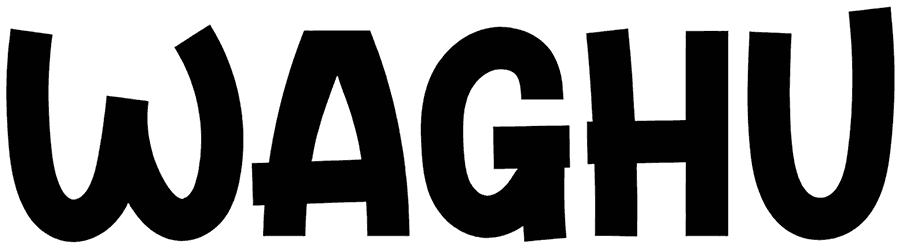
Waghu Font
Would you like to have a bold and cheerful outward for your future project? This cartoon font with a hand-drawn form, which is called Waghu, can help to get you there. Even though this fancy font doesn’t support numerals and punctuation marks, it can present a nice display for various creative designs such as social media graphics, packaging, product logos, and other kinds of stuff.